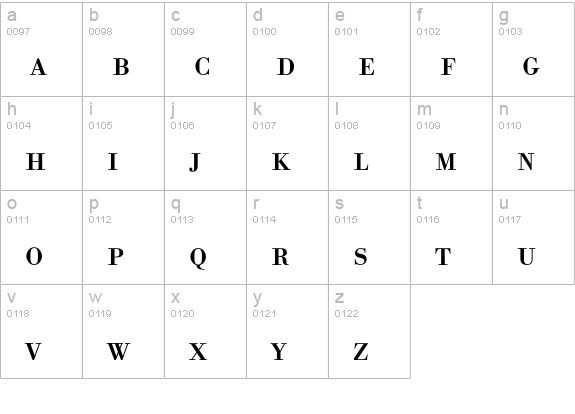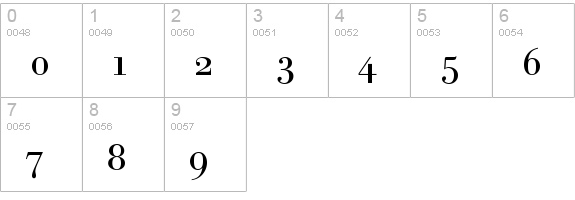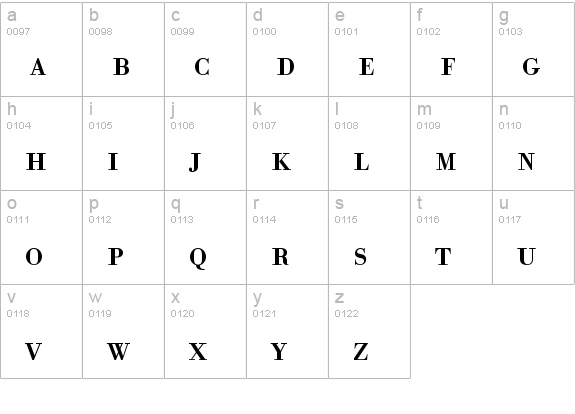
BodoniSCEF-Regular Font Details
BodoniSCEF-Regular is the standard, neutral variant in the BodoniSCEF typeface family \xE2\x80\x94 well suited to general body text, paragraphs, and standard typographic work.
BodoniSCEF-Regular is a classic and elegant serif font that exudes sophistication and style. With its clean lines and timeless appeal, this font is perfect for adding a touch of refinement to any design project. The sharp serifs and tall x-height of BodoniSCEF-Regular make it ideal for use in headings, logos, and other display applications. What's even better is that BodoniSCEF-Regular is available for free download at FontsMarket.com. This means you can easily access this beautiful font and use it in your projects without any cost. So why wait? Add a touch of class to your designs with BodoniSCEF-Regular today!